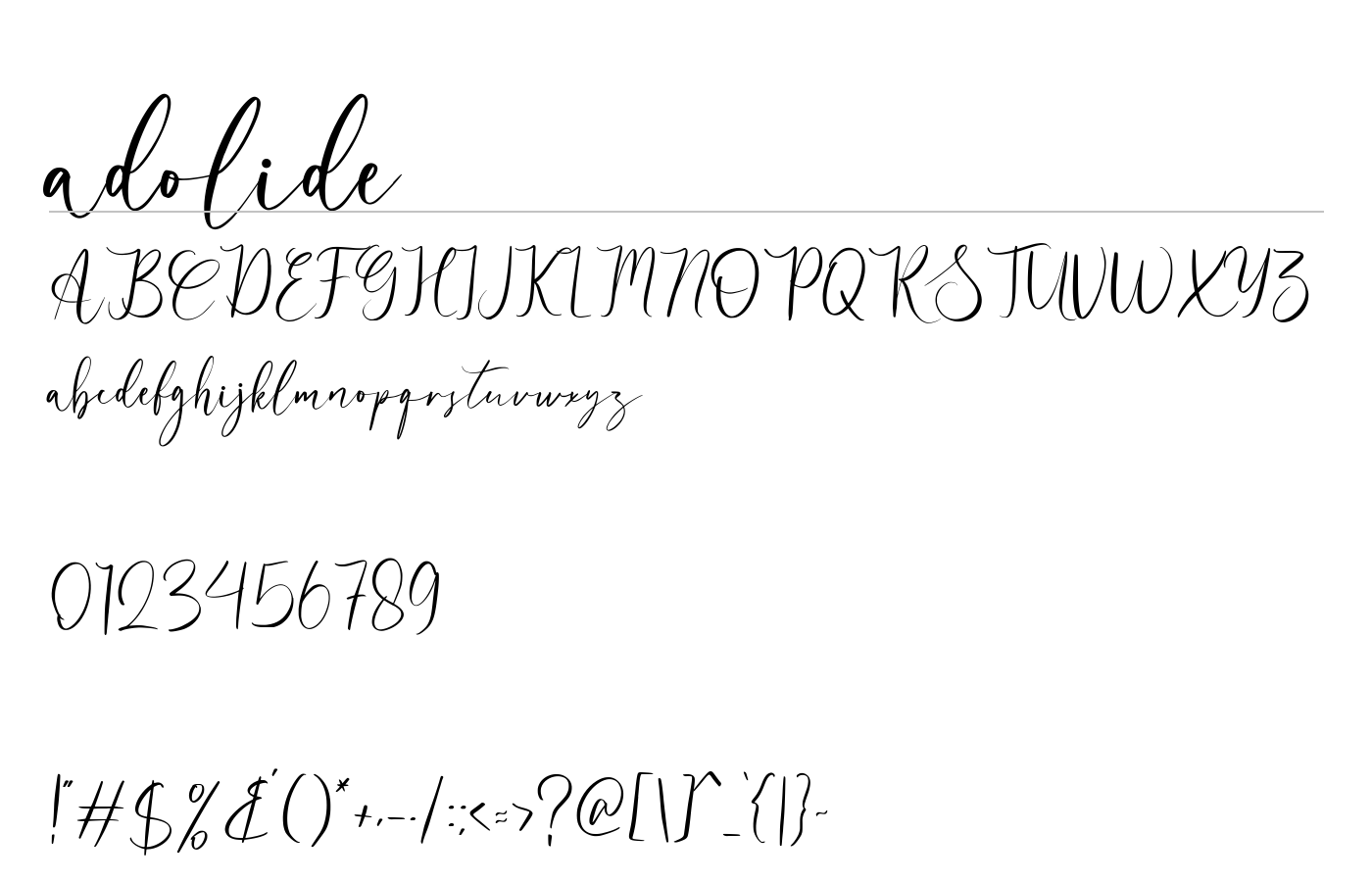
Adolide is an elegant, thin script font characterized by its graceful, flowing lines and delicate letterforms. Its tall, slender strokes and refined curves give it a sophisticated and modern handwritten feel, ideal for adding a personal yet stylish touch to branding, invitations, and fashion-related designs. This font works best in decorative and display uses where a refined, artistic look is desired.
adolide Font
About adolide Font
| Font family | adolide Font |
| Designer | Candra Hamdani |